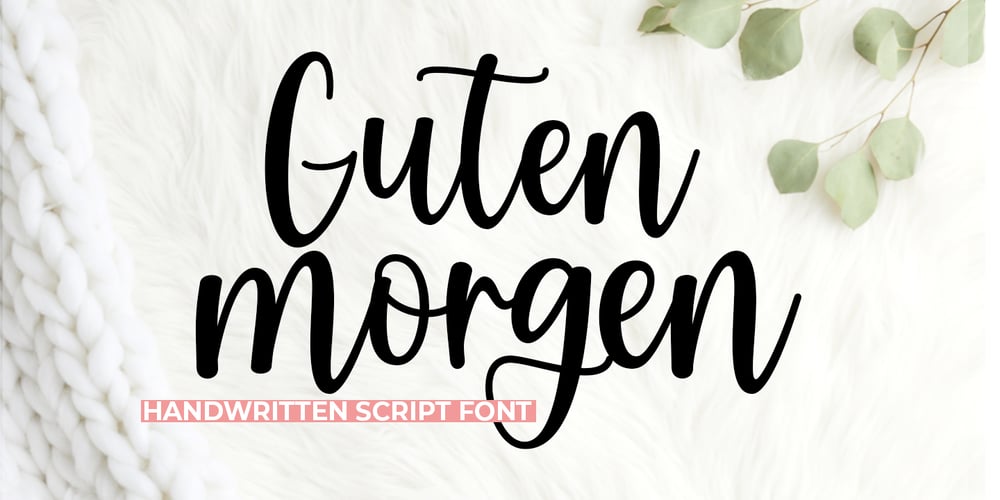
Guten Morgen
Guten Morgen font
Guten Morgen Font Family was designed by Arif Gunawan and published by Natural Ink. Guten Morgen contains 1 styles and family package options. Guten Morgen Script is a modern calligraphy design, including Regular. This font is casual and beautiful with swash. Can be used for various purposes. such as logos, product packaging, wedding invitations, branding, headlines, signage, labels, signatures, book covers, posters, quotes, and more.